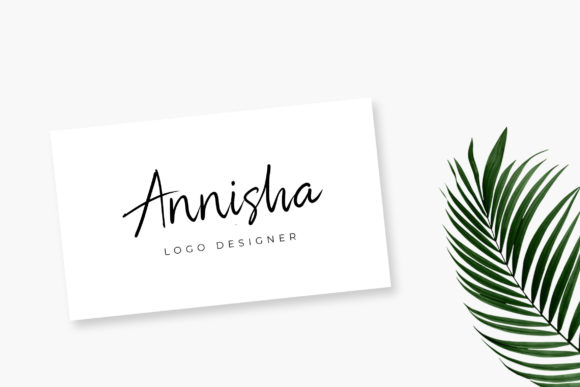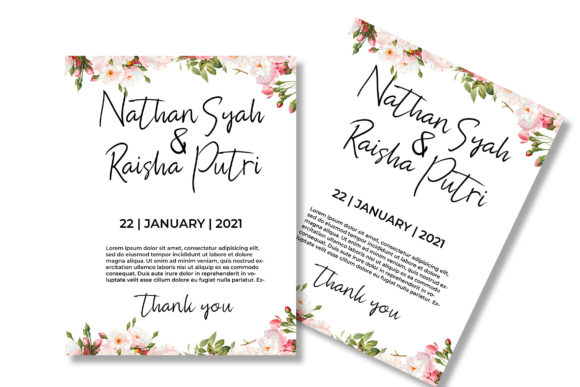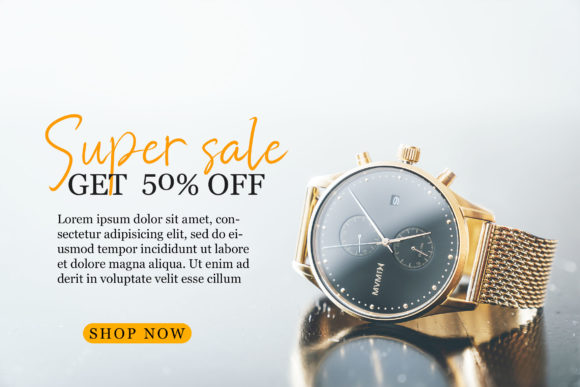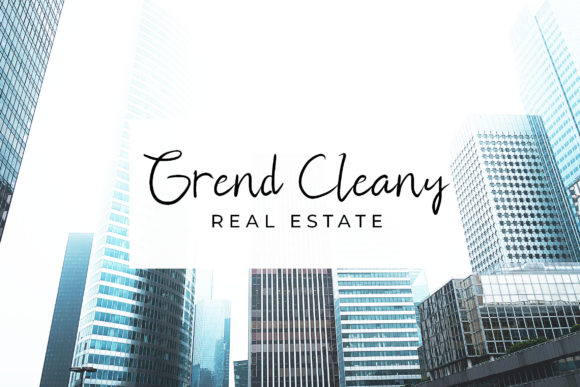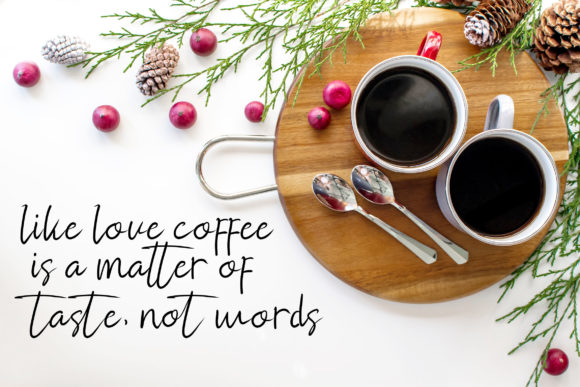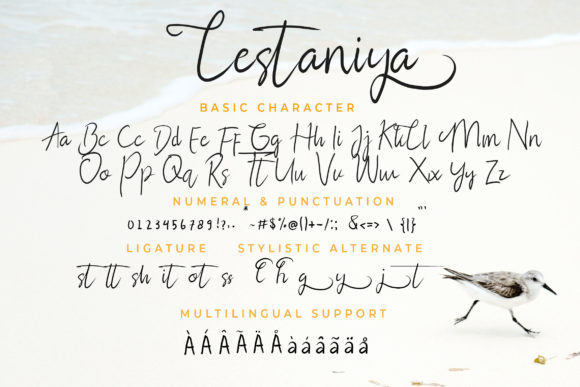
Introduction to Lestanya Font
Have you ever stumbled upon a beautiful piece of art or design that left you speechless, wondering how it was created? For many designers, that moment of inspiration can be a game-changer. For those who have been there, you know how crucial it is to have the right design resources at your fingertips.
One such resource that can elevate your creative project to the next level is the Lestanya Font. This elegant, flowing handwritten font is perfect for designers looking to add a touch of sophistication and style to their work. With its incredibly distinct and timeless style, Lestanya Font is an ideal choice for any design project that requires a high level of visual appeal.
Not only is Lestanya Font a valuable addition to any designer’s toolkit, but it’s also available for free download, complete with a transparent background, making it easy to integrate into any design. Whether you’re a seasoned professional or a budding designer, Lestanya Font is sure to be a trusted design resource for years to come.
Key Features of Lestanya Font
- Unique Hand-Drawn Style: Lestanya Font offers a distinctive hand-drawn design, perfect for creative projects that require a personal touch.
- Multi-Lingual Support: The font includes a wide range of languages, including Latin, Cyrillic, and Greek alphabets, making it a versatile design tool.
- Perfect for Creative Projects: Lestanya Font is an excellent choice for designers working on creative projects, from branding and advertising to editorial and publishing.
Honest Review: Lestanya Font
As a designer, I’m always on the lookout for high-quality design resources to enhance my creative projects. Recently, I stumbled upon the Lestanya Font, and I’m excited to share my honest review with you.
- High-quality typography: The Lestanya Font boasts beautiful, intricate lettering that adds a touch of elegance to any design project.
- Limited language support: Unfortunately, the Lestanya Font only supports a limited number of languages, which may be a drawback for designers working on multilingual projects.
- No bold or italic styles: While the font’s regular style is exquisite, it would be great to have bold and italic variations to add more depth and emphasis to your designs.
Overall, I’m impressed with the Lestanya Font’s quality and versatility. While it may have some limitations, its unique design and free download make it a valuable resource for any designer. If you’re looking to elevate your creative project with a high-quality, elegant font, the Lestanya Font is definitely worth checking out.
Using Lestanya Font in Popular Design Platforms
Tips for Getting the Most Out of Lestanya Font
- Combine the Lestanya Font with other design elements to create visually appealing compositions.
- Use the font’s unique features to create custom designs that stand out.
The Lestanya Font is ideal for a variety of creative projects, including:
- Graphic design and visual content creation.
- Logo design and branding.
- Typography-based designs and illustrations.